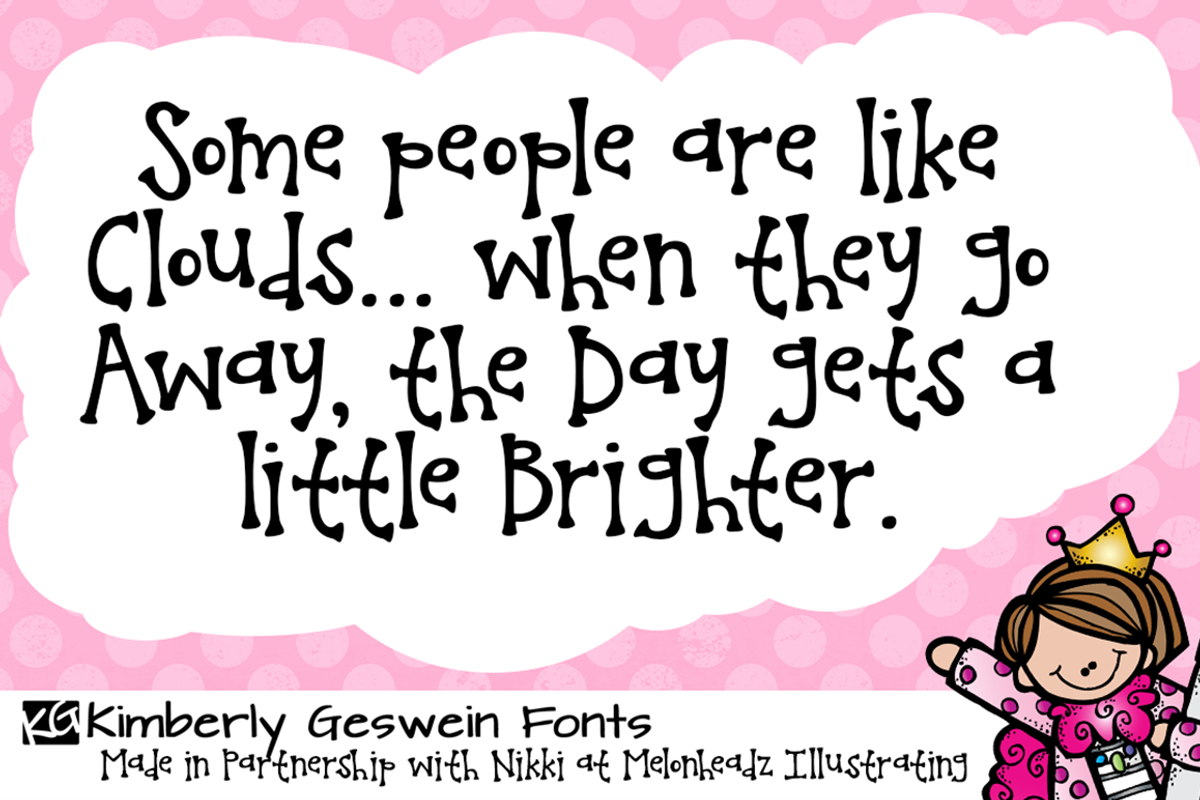
KG Melonheadz Font
KG Melonheadz Font by Kimberly Geswein Fonts is a font selected for branding, posters, packaging, typography.
Why KG Melonheadz Font is worth a look
KG Melonheadz Font by Kimberly Geswein Fonts fits naturally into Branding, posters, packaging, typography.